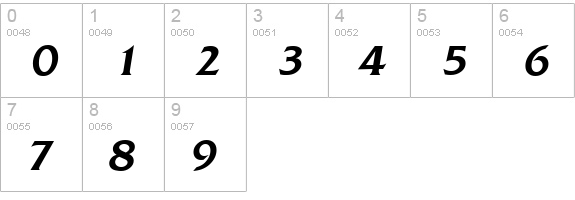
QuadratSerial-Medium-Italic is a balanced, medium-weight, italic variant in the QuadratSerial typeface family \xE2\x80\x94 well suited to sub-headlines, navigation, and balanced editorial work.
QuadratSerial-Medium-Italic is a modern and stylish font that exudes sophistication and elegance. Its sleek lines and unique design make it perfect for a wide range of design projects, from branding to editorial design. The italic style adds a touch of flair and personality to any text, making it stand out from the crowd. The best part? QuadratSerial-Medium-Italic is available for free download at FontsMarket.com. This means you can elevate your designs without breaking the bank. Whether you're working on a professional project or a personal creative endeavor, this font is sure to add a touch of class and sophistication. Don't miss out on the opportunity to enhance your designs with QuadratSerial-Medium-Italic – download it for free today!